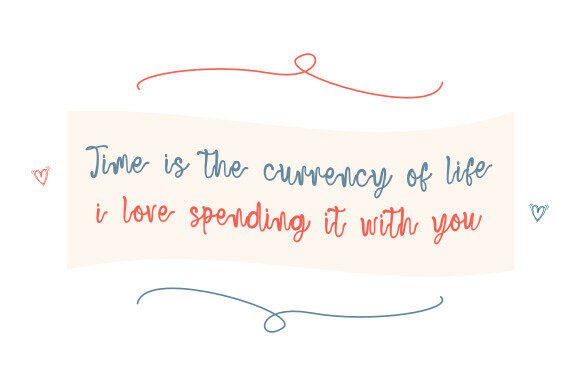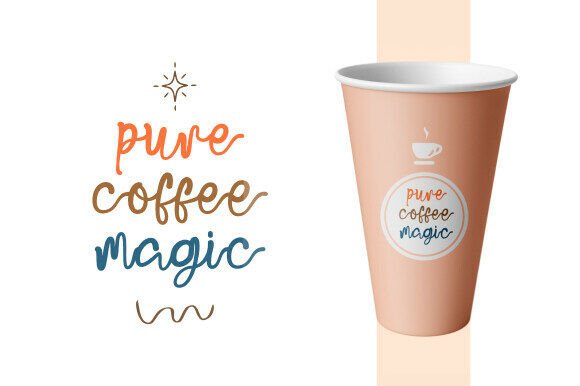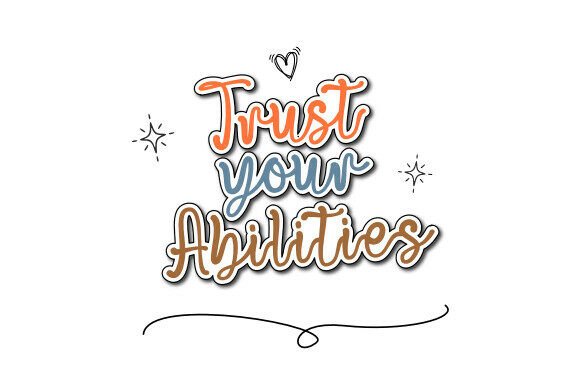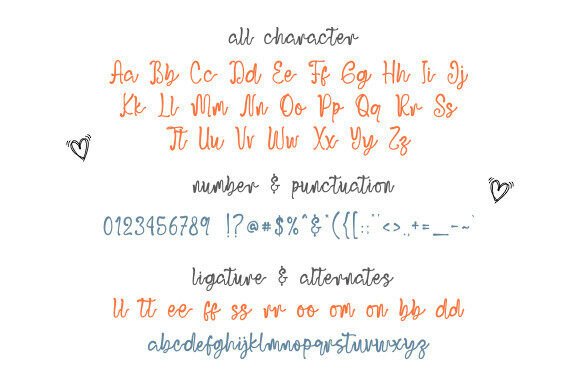
Have you ever stared at a blank page or screen, eager to bring a creative idea to life, but struggling to find the perfect font to convey the feeling you’re going for? We’ve all been there – the blank slate staring back at us, begging for inspiration.
That’s where the delightful Bouncy Scribble Font comes in, designed to inject a burst of energy and playfulness into your designs. With its bouncy baseline and fluid strokes, this handwritten script font is the perfect addition to any project, from social media quotes to trendy apparel and logo designs. Its clean, smooth curves make it an excellent choice for cutting machines and digital lettering, giving you the freedom to experiment and create without limitations.
- Unique Characteristics: The font features a playful, handwritten style with bouncy and scribbled lines, adding a touch of whimsy and personality to any design.
Bouncy Scribble Font Review
Overall, I think the Bouncy Scribble Font is a fun and creative addition to any design project. ✨ The playful, hand-drawn feel of the font is sure to add a touch of whimsy and personality to your work.
- Unique and playful character shapes
- Highly customizable with a wide range of styles and sizes
- Works well for titles and headings, adding a fun touch to your design
- May not be suitable for body text, as the irregular letterforms can be difficult to read at smaller sizes
- Some characters may not render correctly in certain font sizes or styles
- Not as versatile as some other fonts, may not work well in formal or professional designs
- Choose a bright and bold background color to contrast with the font.
- Use the font to write the birthday message in a playful and bubbly style.
- Add illustrations or doodles around the message to create a whimsical atmosphere.
- Pair the font with colorful polka dots or stripes to add visual interest.
- Use a mix of uppercase and lowercase letters to create a sense of movement and energy.
- Use the font to highlight a motivational quote or a fun fact.
- Combine the font with bright and bold graphics or illustrations to create a visually appealing post.
- Add a call-to-action or a question to engage with your followers.
- Pair the font with bold geometric shapes or bright colors to create a modern and trendy look.
- Use a mix of digital and hand-drawn elements to add texture and interest.
Overall, I think the Bouncy Scribble Font is a great choice for designers looking to add some personality and fun to their work. While it may not be suitable for every project, it’s a great addition to any design toolkit.
Getting the Most Out of Bouncy Scribble Font
To get the most out of the Bouncy Scribble Font, try the following tips:
– Use it for playful and creative projects, such as party invitations or social media graphics.
– Combine it with other fonts to create a unique and eye-catching look.
– Experiment with different font sizes and colors to add emphasis and visual interest.
The Bouncy Scribble Font is commonly used for:
– Party invitations and decorations
– Social media graphics and ads
– Children’s books and educational materials
– Playful and creative projects